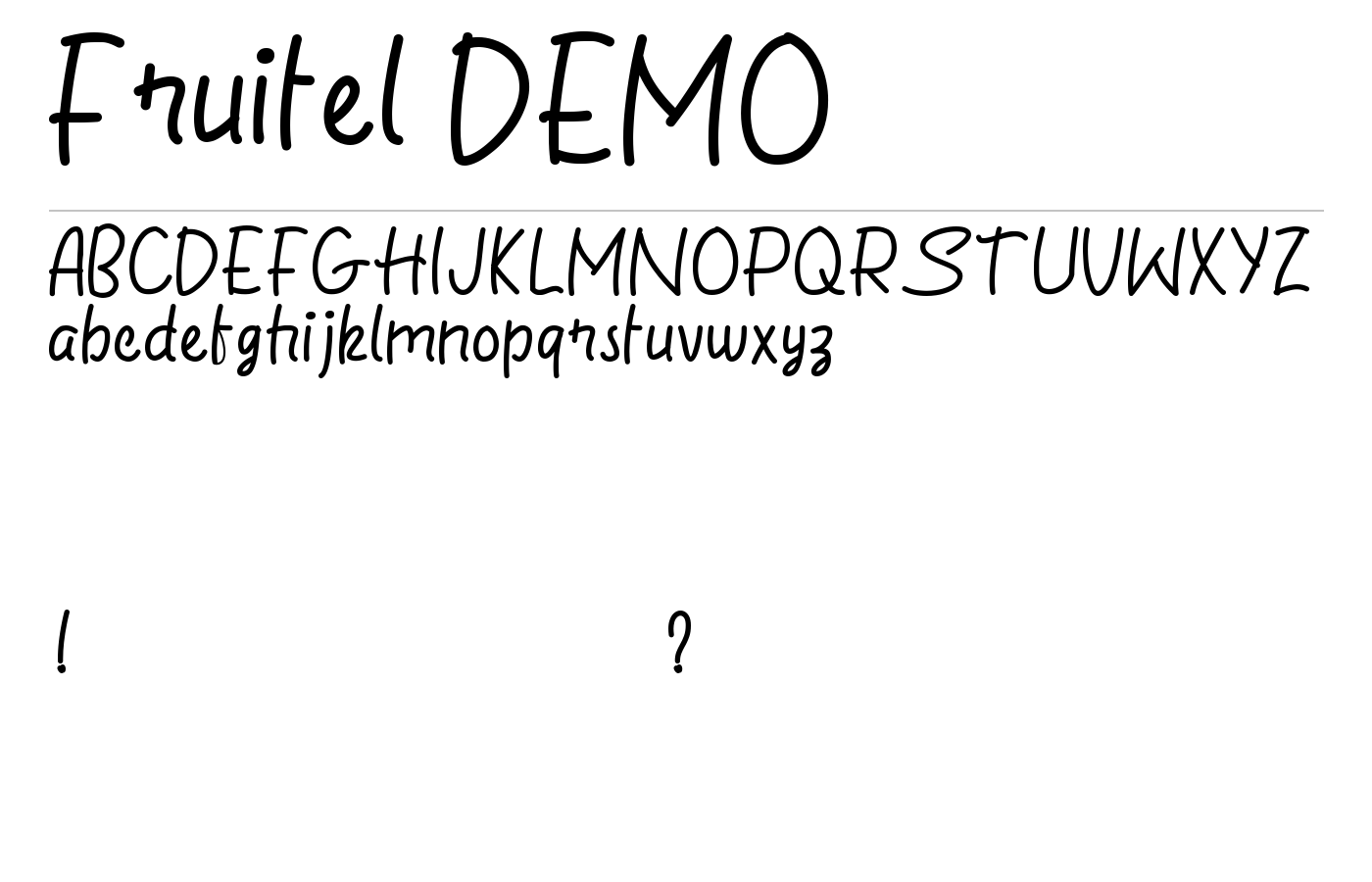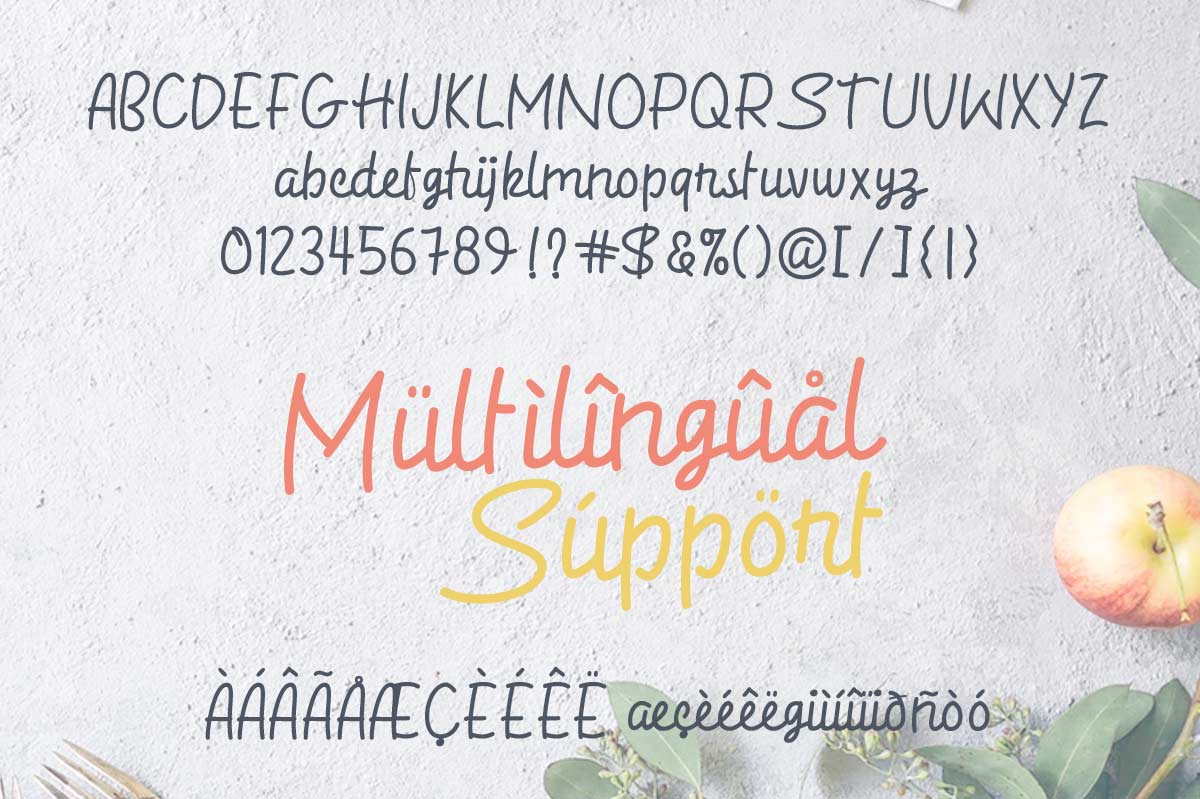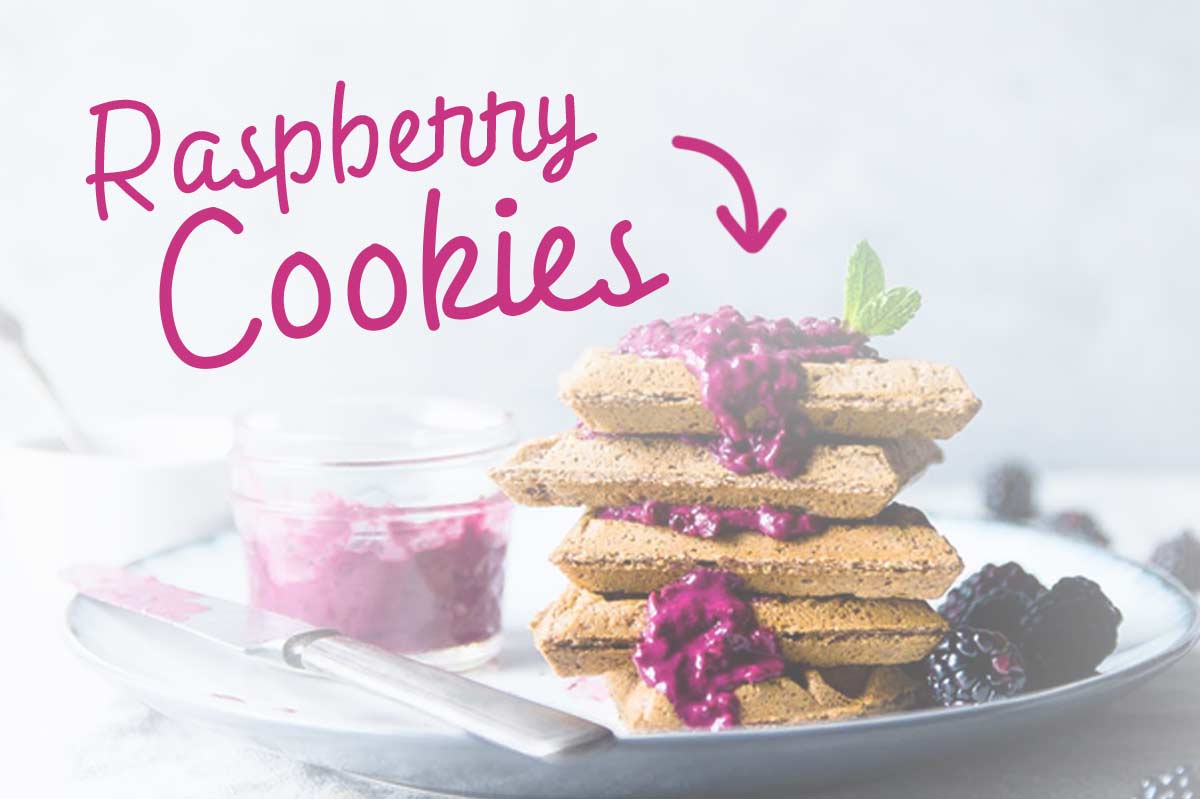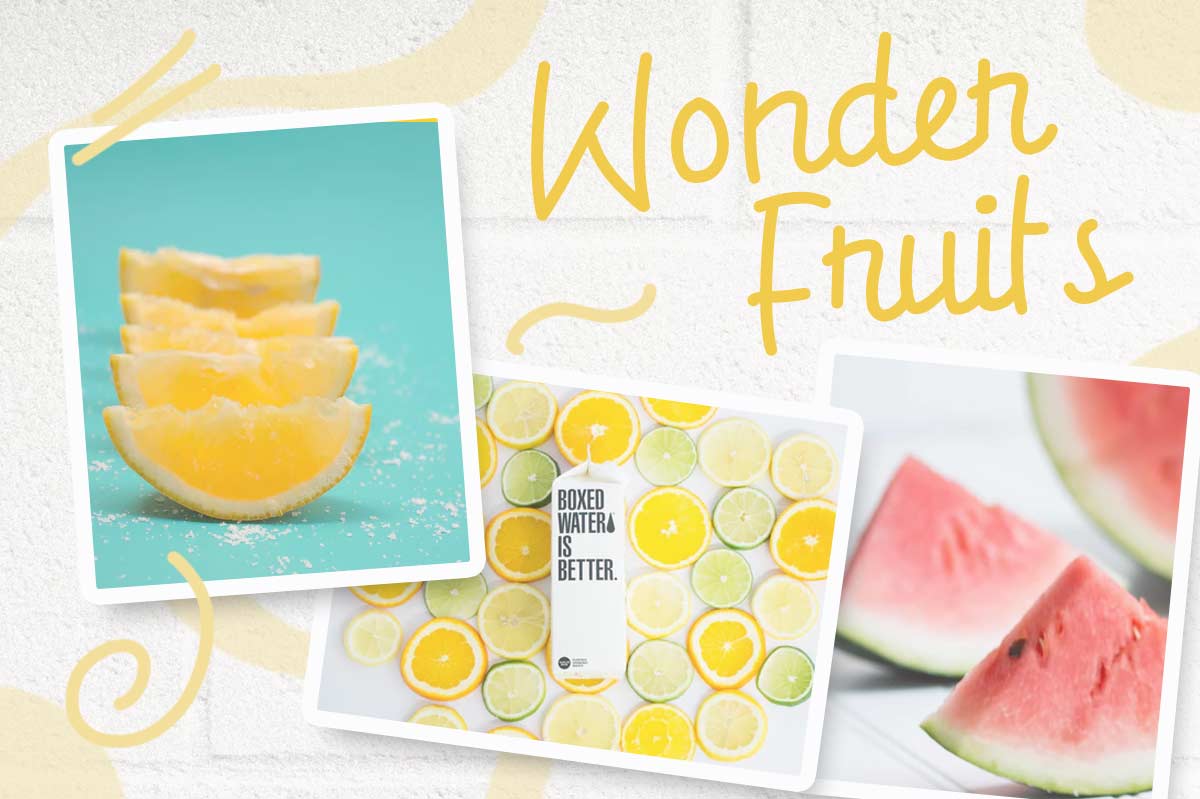
Fruitel Cheerful Script is a light, playful handwritten font that features tall, narrow letterforms with a casual, friendly vibe. Its smooth, slightly irregular strokes and lively characters make it perfect for projects that need a warm, informal touch, such as greeting cards, children’s books, or creative branding. This font works well where a personal, approachable feel is desired, bringing charm and spontaneity to headlines and display text.
Fruitel Cheerful Script Font
About Fruitel Cheerful Script Font